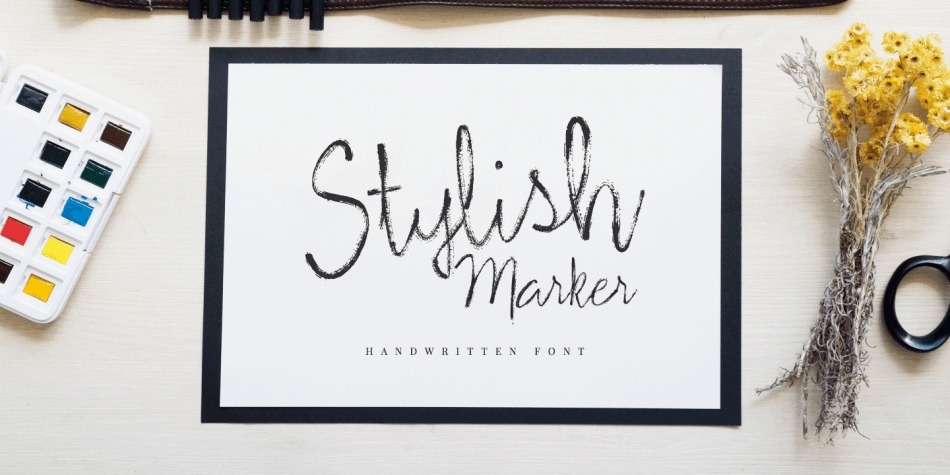
Stylish Marker Font
Stylish Marker Font is perfect for trendy fashion branding, creative workshop materials, artistic event promotions, stylish social media graphics, contemporary boutique signage, design studio identities, casual lifestyle campaigns, and modern artistic projects.
What makes Stylish Marker Font exciting is its effortlessly chic character that captures the spontaneous creativity and contemporary flair of modern artistic expression through marker-inspired letterforms that seem drawn with confident strokes and stylish precision. The font features bold, fluid shapes with marker-like textures that evoke the authentic creativity and fashionable edge found in contemporary design studios and trendy artistic spaces. Its stylish aesthetic and artistic authenticity make it perfect for brands that want to communicate creative confidence, contemporary style, and the kind of effortless cool that resonates with design-conscious audiences while creating memorable experiences that celebrate the intersection of art and fashion.
Stylish Marker Font family includes various fashionable weights such as Light, Regular, Medium, and Bold variations, often featuring stylish alternates and contemporary decorative elements. The family may include trendy symbols, artistic ornaments, and marker-style ligatures that enhance the font's chic aesthetic, providing designers with comprehensive options for creating sophisticated typographic compositions that reflect current design trends and artistic sensibility.
This fashionably artistic typeface has gained recognition among creative brands and style-focused businesses seeking authentic marker typography solutions that reflect contemporary artistic values and fashionable appeal. Stylish Marker Font Free Download provides an excellent opportunity to style with this chic marker font before investment. The font's character set includes artistic symbols and fashion-inspired glyphs that work perfectly for creative and fashion industry applications. Whether you're designing for fashion boutiques, design studios, or contemporary lifestyle brands, Stylish Marker Font delivers the stylish creativity your project requires. Its versatile nature makes it suitable for various fashionable applications including art galleries, trendy restaurants, fashion magazines, and contemporary lifestyle companies, ensuring your typography choices communicate artistic confidence and stylish sophistication while creating memorable brand experiences that celebrate the dynamic intersection of creativity and contemporary style through its distinctively chic and authentically artistic visual character.